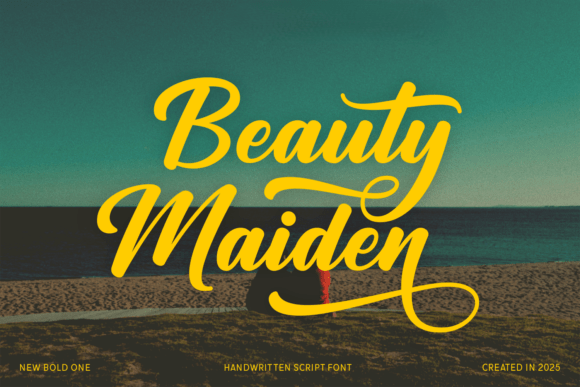
Introducing Beauty Maiden Font: The Epitome of Elegance and Charm
In the realm of typography, few fonts manage to capture the essence of femininity and sophistication as effortlessly as Beauty Maiden. This bold handwritten script font is a game-changer for designers and crafters looking to infuse their projects with a strong, feminine touch. With its smooth curves and elegant swashes, Beauty Maiden is the perfect choice for fashion branding, quotes, and social media graphics that demand attention and exude charm.
The Beauty of Handwritten Script Fonts
Handwritten script fonts have a unique ability to add a personal touch to any design project. They evoke emotions and create a sense of connection with the viewer, making them an ideal choice for brands looking to establish a strong emotional bond with their audience. Beauty Maiden takes this concept to the next level with its bold, confident strokes that radiate charm and sophistication.
Key Features of Beauty Maiden Font
- Bold and Confident: Beauty Maiden is not for the faint of heart. Its bold strokes command attention and make a statement, perfect for headlines, titles, and emphasis.
- Smooth Curves: The font features smooth, flowing curves that give it an elegant and refined look, suitable for high-end fashion brands and luxury products.
- Elegant Swashes: To add an extra layer of sophistication, Beauty Maiden comes with elegant swashes that can be used to enhance the look of your designs, making them more dynamic and engaging.
- Feminine Touch: The font’s design is deeply rooted in feminine charm, making it an excellent choice for projects that require a touch of grace and elegance.
Use Cases for Beauty Maiden Font
The versatility of Beauty Maiden makes it suitable for a wide range of applications. Here are some of the most popular use cases:
- Fashion Branding: From logos to packaging, Beauty Maiden can help fashion brands establish a luxurious and sophisticated image.
- Quotes and Inspirational Content: The font’s elegant and bold nature makes it perfect for displaying quotes, motivational phrases, and other inspirational content on social media, posters, and blogs.
- Social Media Graphics: Stand out on social media with stunning graphics that combine Beauty Maiden with captivating imagery.
- Wedding and Event Stationery: For those special occasions, Beauty Maiden can add a touch of elegance to wedding invitations, thank you cards, and event programs.
Tips for Using Beauty Maiden Effectively
To maximize the impact of Beauty Maiden in your designs, consider the following tips:
- Pair with Simplicity: Let Beauty Maiden be the focal point by pairing it with simpler fonts or backgrounds. This contrast will make your message stand out.
- Experiment with Colors: While Beauty Maiden looks stunning in classic colors like black, gold, and pastels, don’t be afraid to experiment with bold and vibrant colors to match your brand’s personality.
- Utilize Swashes: Don’t neglect the swashes! They can add a dynamic element to your text, making it more visually appealing.
Beauty Maiden Font is more than just a typeface; it’s a statement of elegance, confidence, and charm. Its unique blend of boldness and femininity makes it a valuable asset for designers and crafters looking to create stunning fashion branding, quotes, and social media graphics. With its smooth curves, elegant swashes, and strong feminine touch, Beauty Maiden is poised to become your go-to font for projects that demand sophistication and charm.
Whether you’re a professional designer or a DIY enthusiast, Beauty Maiden Font is ready to transform your creative projects. Dive into the world of elegant typography and discover how Beauty Maiden can help you convey your message with style and confidence. Experience the beauty of handwritten script fonts like never before and let Beauty Maiden be the crown jewel of your typography collection.